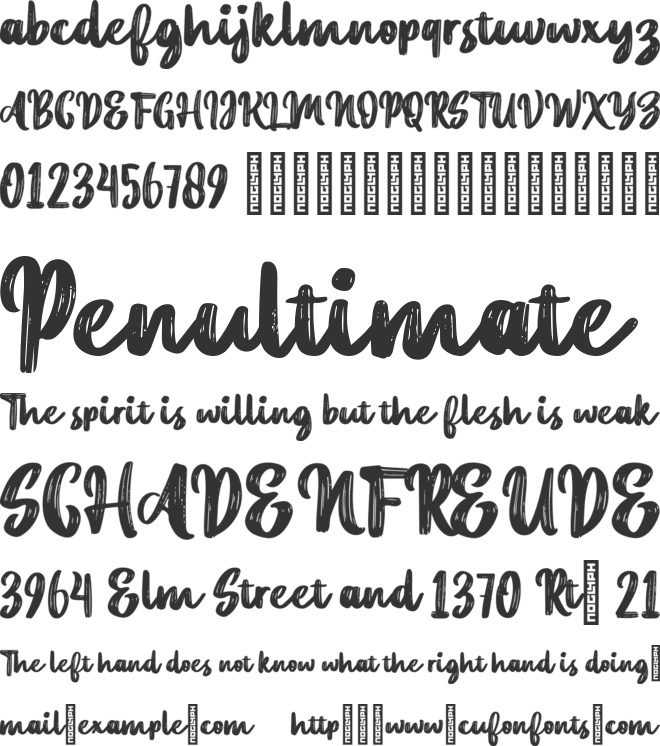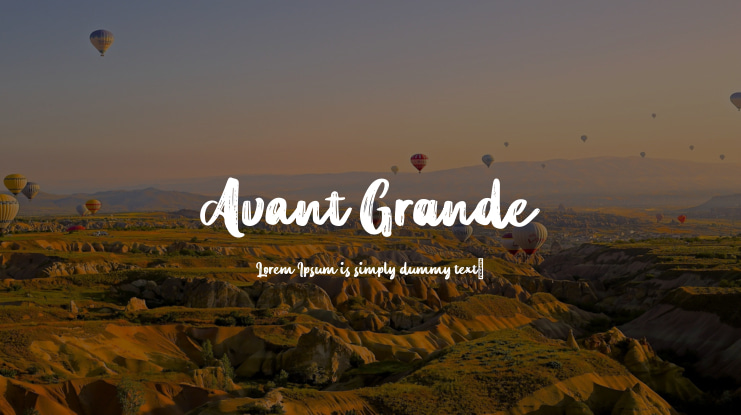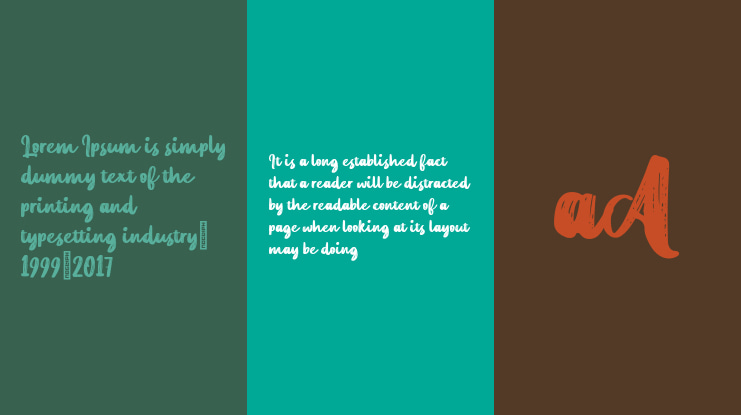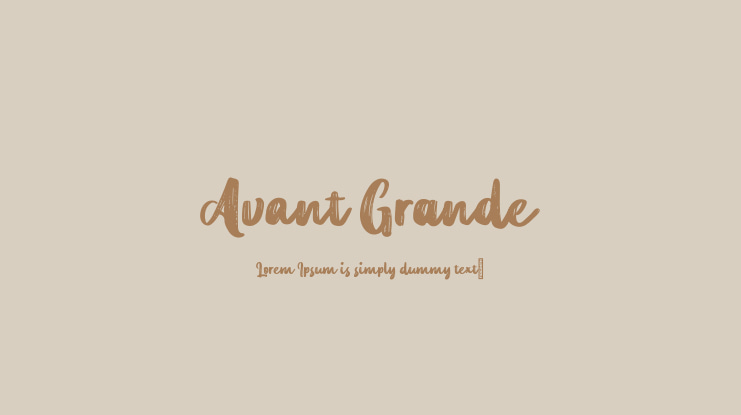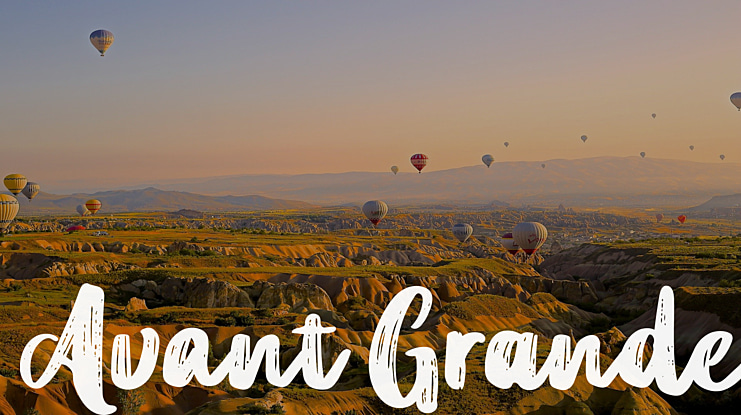
Avant Grande Font
Amir Subqi Setiaji
Introducing, Avant Grande typeface. 100% handmade, so you could feel the organic flow on it. This font will suitable for your many design needs. From branding , packaging, invitation etc.